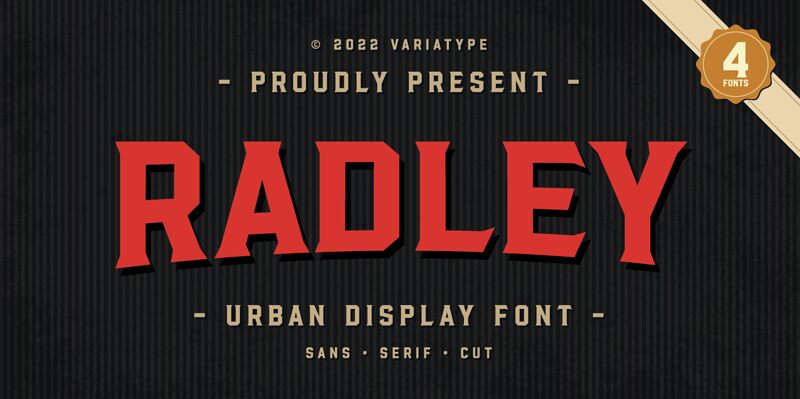
Radley Sans
Radley Sans is a striking display font that exudes a distinct old-school charm. Designed by Variatype, this font boasts a robust, geometric aesthetic that immediately grabs attention. The sharp angles and heavy, confident strokes convey a sense of timelessness and industrial elegance.
Radley Sans would excel in headings, logos, and other high-impact design elements, where its bold presence can effectively command the viewer's focus. Its versatility also lends itself to packaging, editorial layouts, and branding applications that seek to evoke a nostalgic, retro-inspired vibe.
Overall, Radley Sans is a captivating font that seamlessly blends classic and modern sensibilities, making it a compelling choice for designers seeking to craft impactful, visually striking designs.